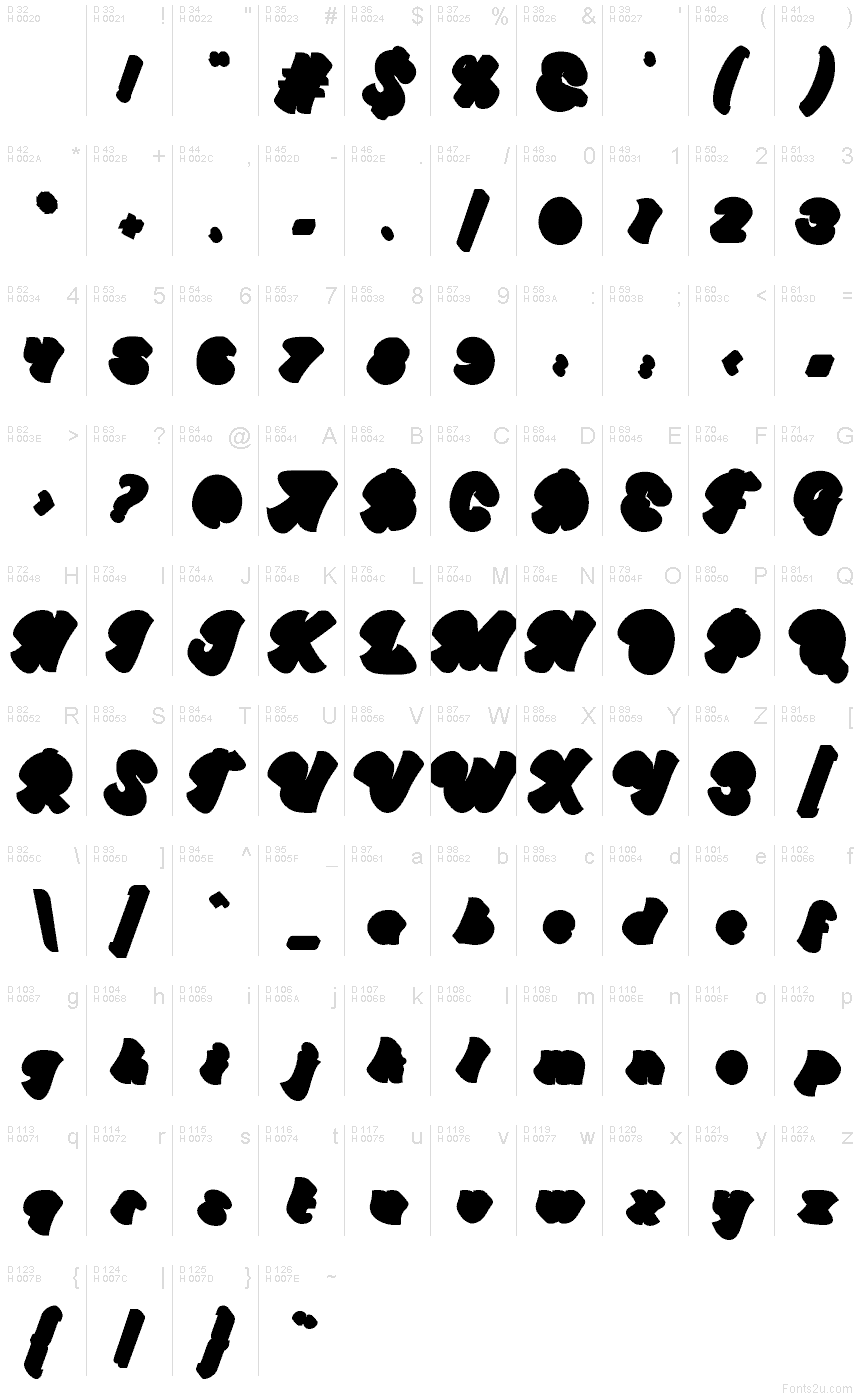
Sweet Joys Shadow
Sweet Joys Shadow font, designed by PutraCetol Studio, is a bold brush typeface with a swirly, whimsical style reminiscent of the 1960s and 1970s psychedelic or groovy fonts. Its retro-inspired, decorative elements and bold shapes create an engaging and playful aesthetic.
This free brush font is perfect for vintage-themed branding, playful packaging design, posters, album covers, event flyers, t-shirt prints, logos, greeting cards, social media graphics, children's book covers, and more.